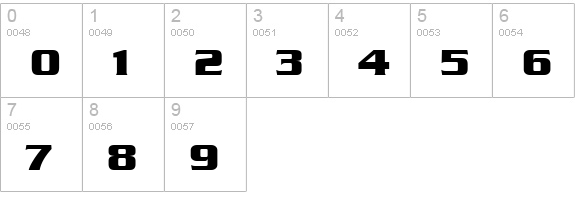
Stockholm Font Details
Introducing the elegant and versatile Stockholm font, a timeless typeface that exudes sophistication and style. With its modern yet classic design, Stockholm is perfect for a wide range of projects, from branding to editorial design. This versatile font features a sleek and stylish appearance that will elevate any design project to the next level. What's even better is that Stockholm font is available for free download at FontsMarket.com. This means you can access this high-quality font without any cost, making it a valuable addition to your font collection. Whether you're designing a logo, creating a poster, or working on a website, Stockholm font will help you achieve a polished and professional look. Don't miss out on the opportunity to enhance your design projects with the beautiful Stockholm font. Download it for free today and take your typography game to new heights!